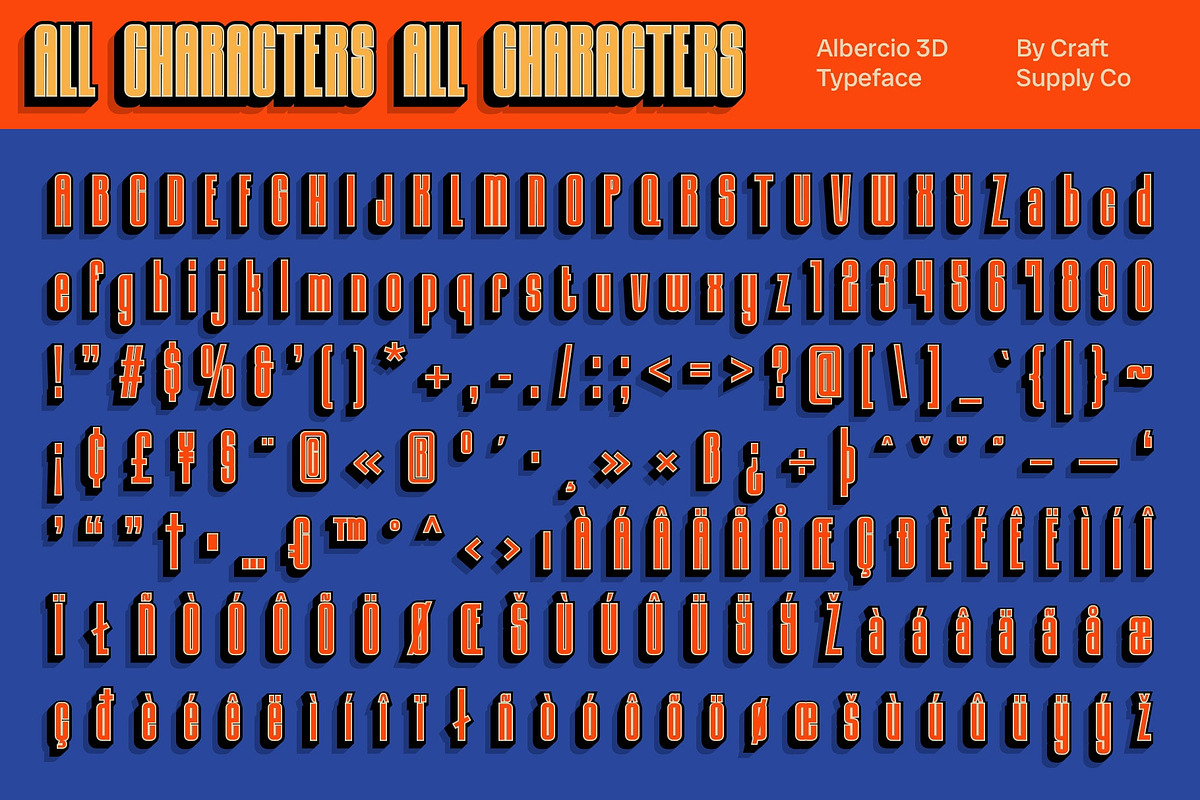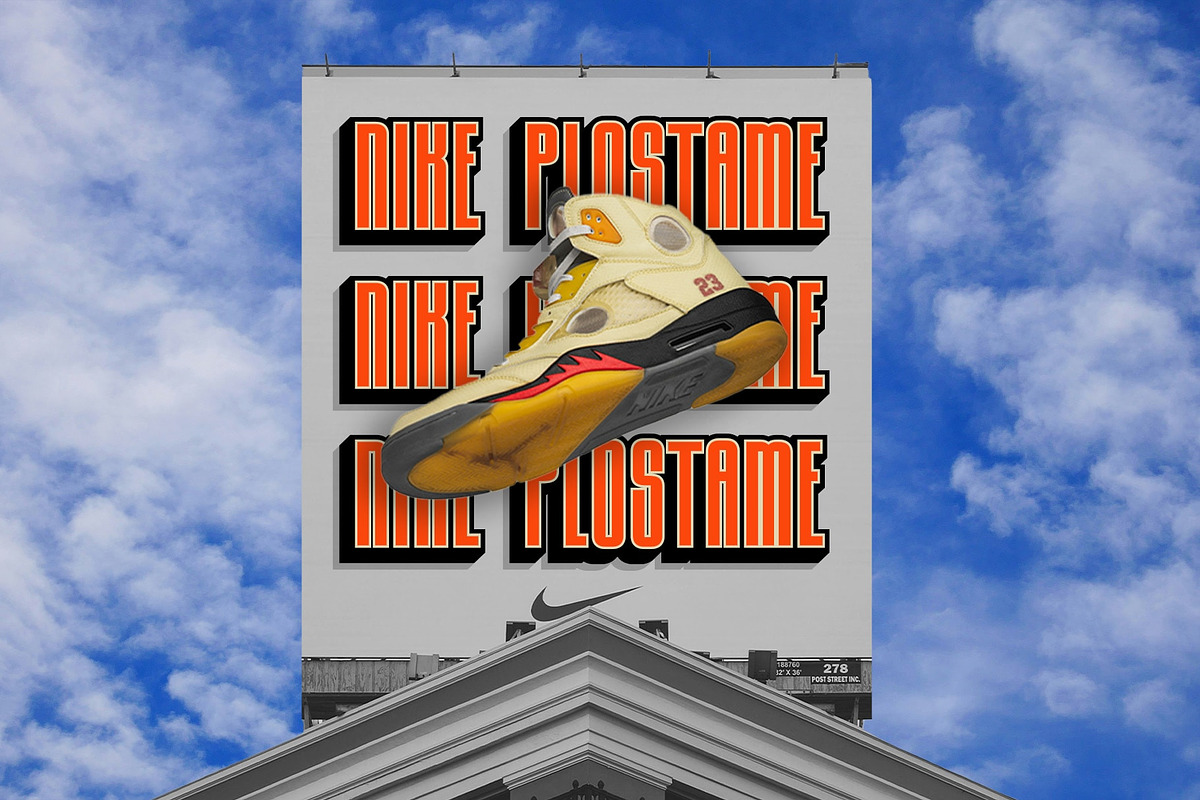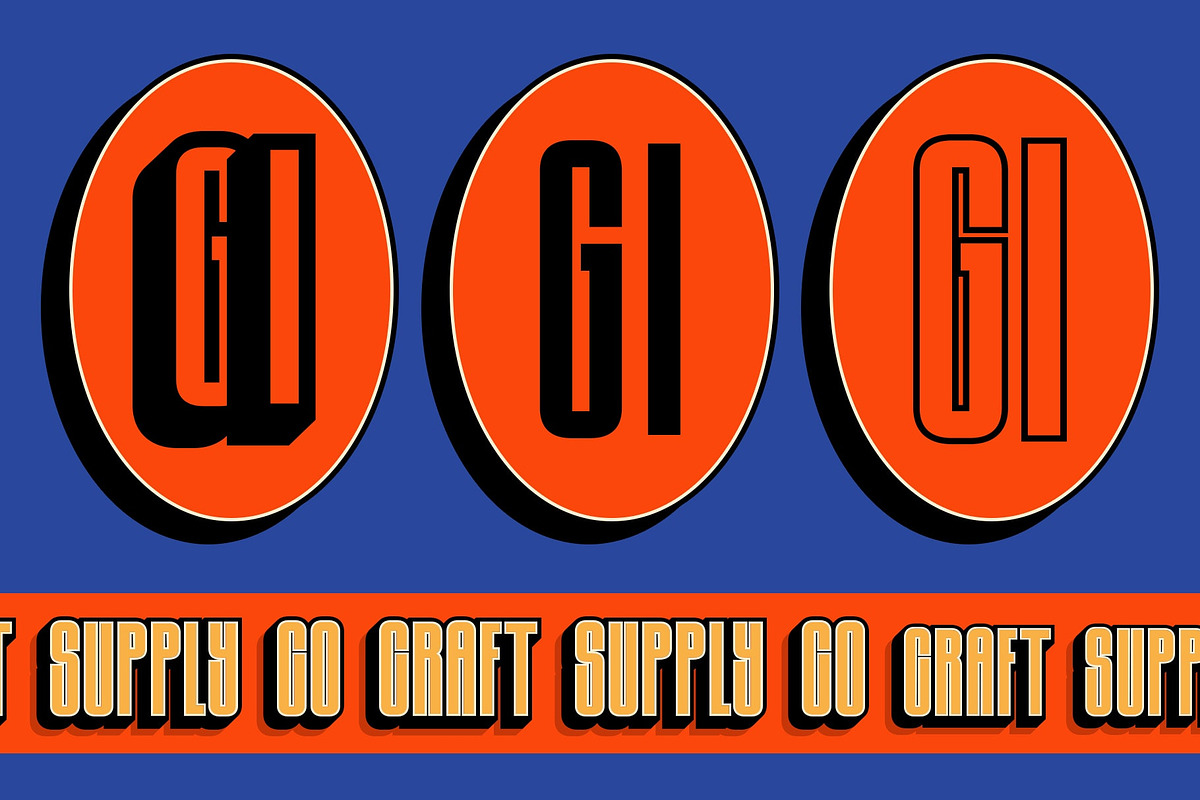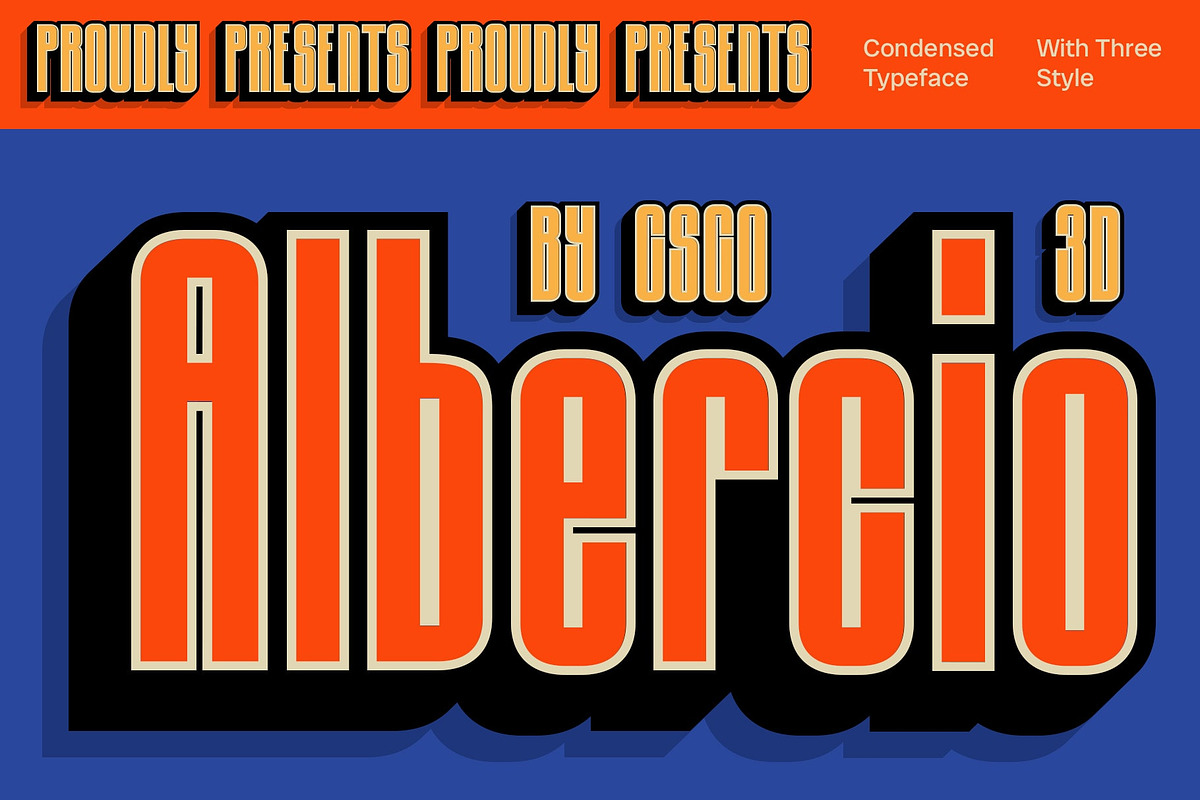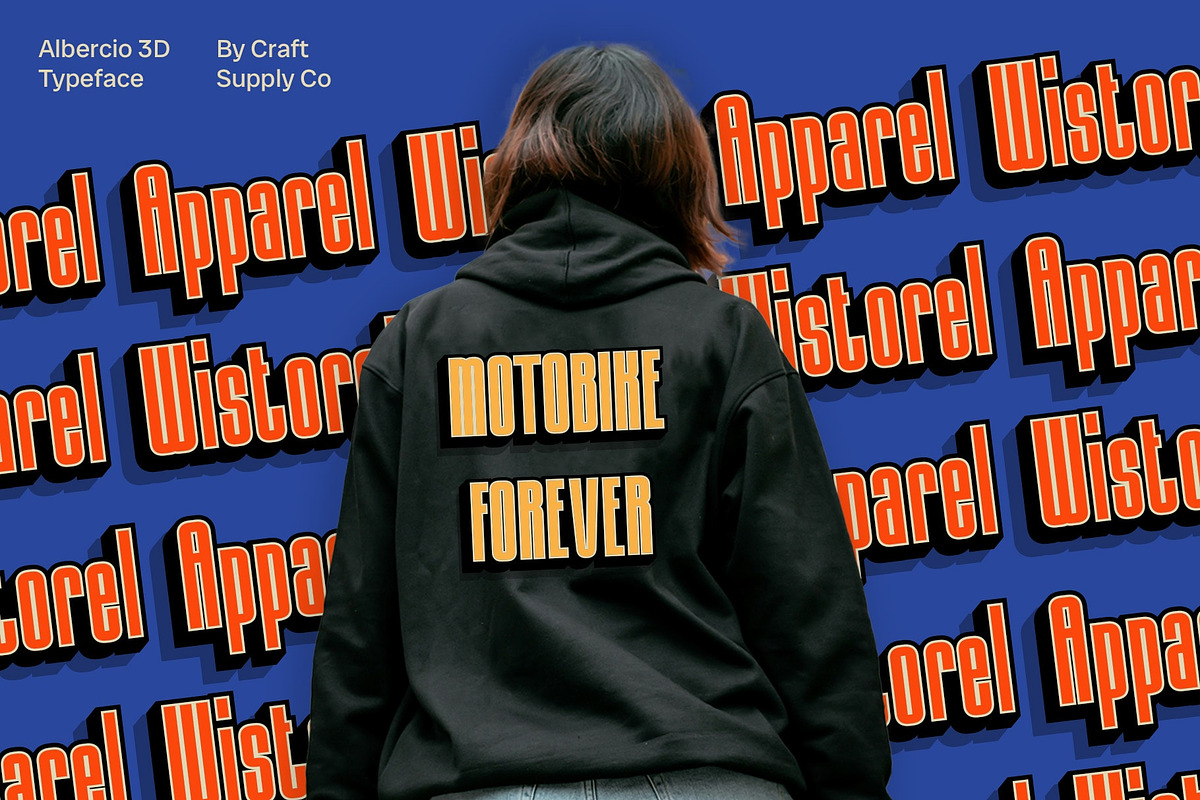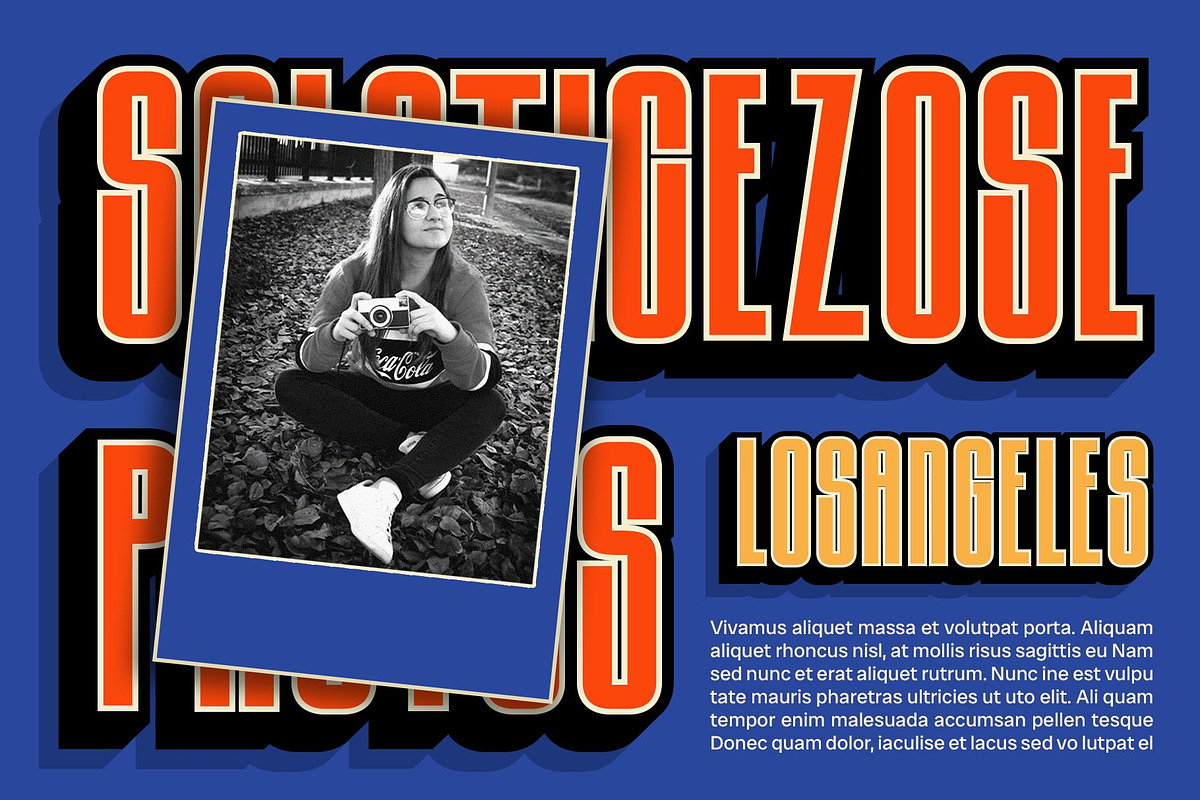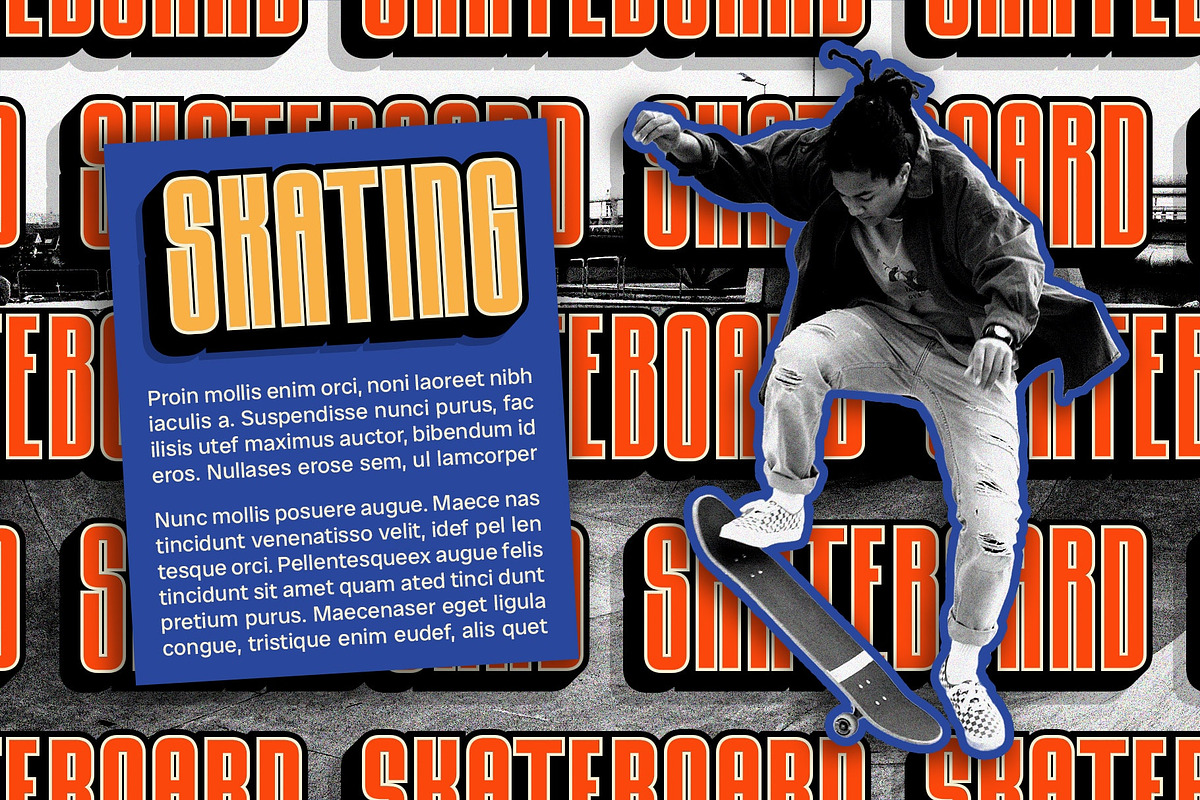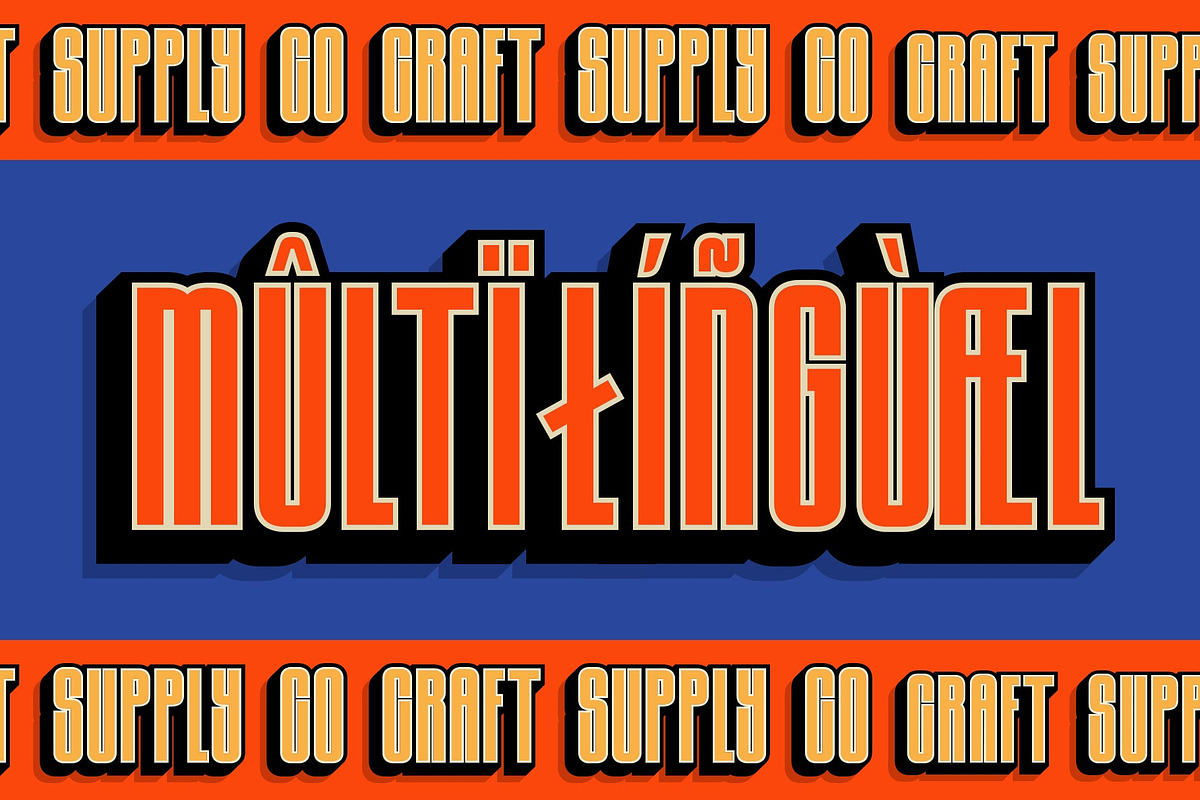
Albercio 3D
Albercio 3D: Dynamic Modernity in Compact Form
Condensed Sans-Serif Design with Sharp Lines
Albercio 3D is a condensed sans-serif font featuring a sleek design with sharp and compact lines. Its condensed form exudes efficiency and modernity, making it perfect for designs that aim to convey a dynamic and contemporary impression.
Engaging 3D Effect
Adding depth and dimension, Albercio 3D incorporates a 3D effect that enhances its visual impact. This effect brings the font to life, making it ideal for digital interfaces, branding materials, and promotional designs that require a bold and innovative typeface.
Ideal for Modern Designs
Designed for projects seeking a modern and dynamic appearance, Albercio 3D is well-suited for logos, headlines, and digital displays where clarity and impact are paramount. Its combination of sharp lines and 3D effect ensures a striking visual presence.
Versatile Application
Despite its condensed structure, Albercio 3D maintains versatility across various design applications. Whether used in web design, advertising, or packaging, this font delivers readability and sophistication while pushing boundaries in visual expression.
Conclusion
In conclusion, Albercio 3D is a condensed sans-serif font that combines sharp lines with an engaging 3D effect. Ideal for designs aiming to convey a modern and dynamic impression, this font enhances any project with its efficient yet innovative visual presence.